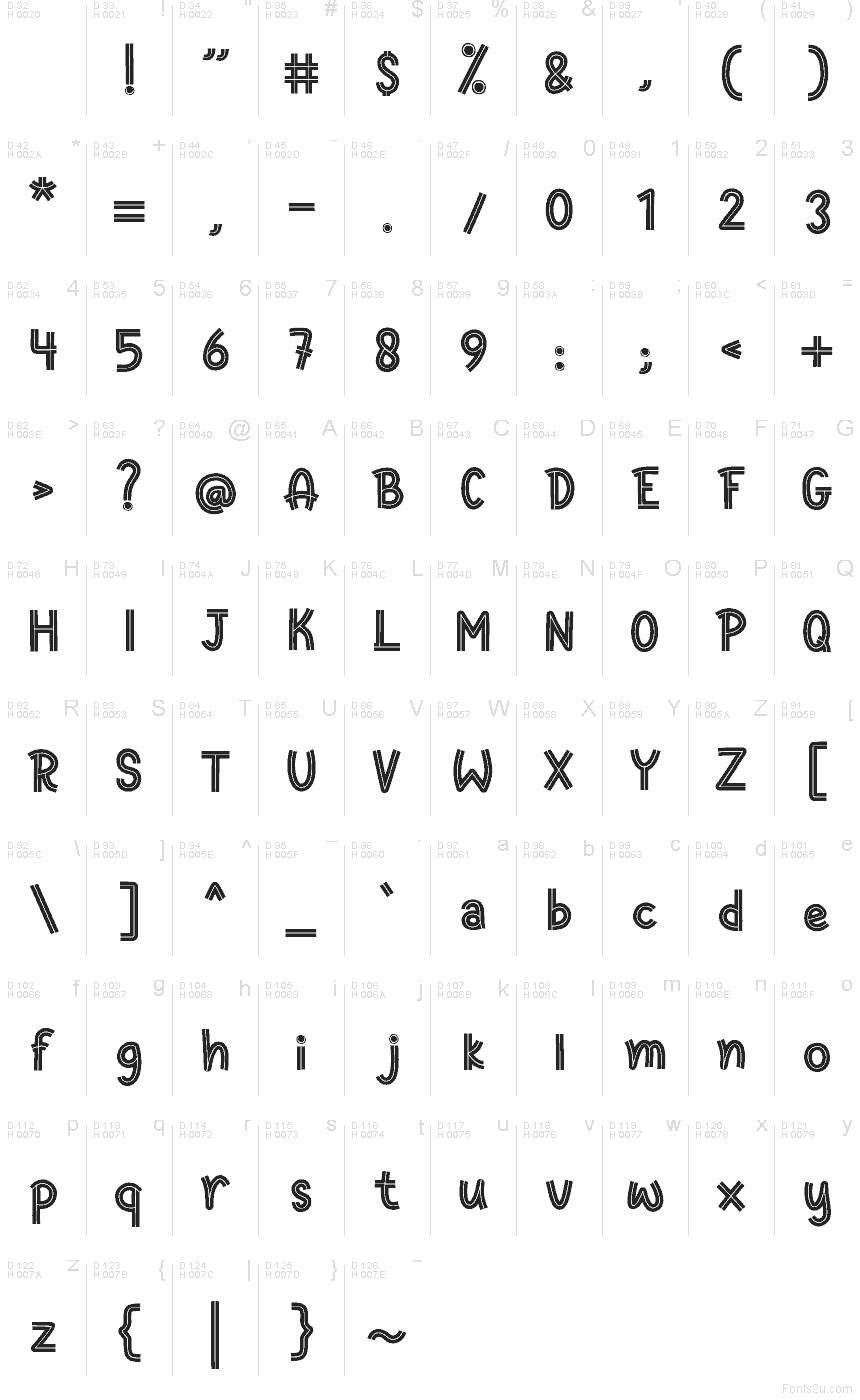
Innerline
Innerline font by Tokokoo Studio is a free decorative display typeface with a bold, striped rhythm that practically vibrates off the page. Its rounded, almost hand-drawn curves and stacked inner lines create a playful, bouncy texture that feels both retro and fresh. The letters look like they’ve been outlined with a thick marker, then filled with racing stripes, giving your titles instant motion and personality.
Using Innerline in your designs brings a fun, eye-catching punch to posters, kids’ book covers, party invitations, logo wordmarks, stickers, and social media graphics. This free font shines at larger sizes where its layered lines can really breathe. Pair Innerline with a simple geometric sans for body text to keep things readable while letting its quirky stripes stay in the spotlight.